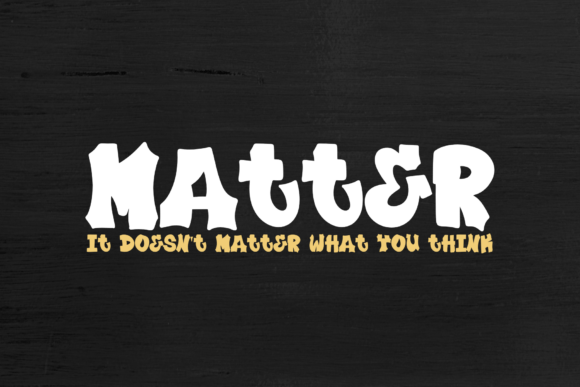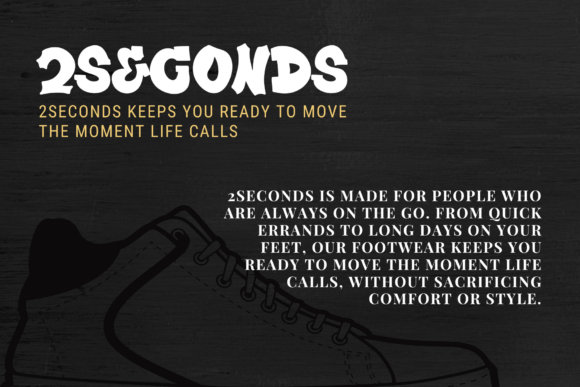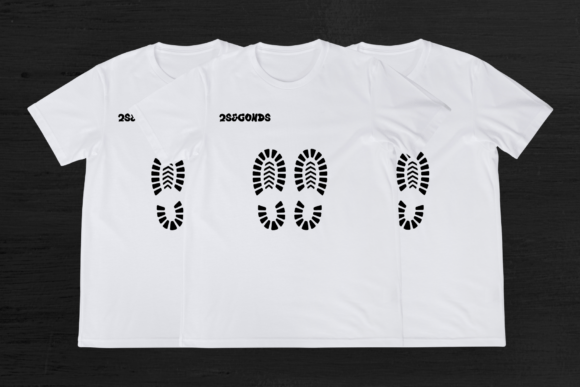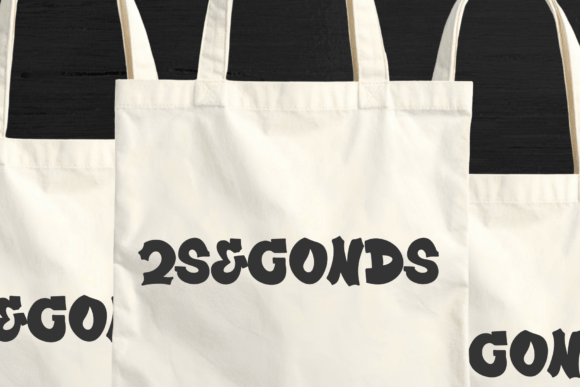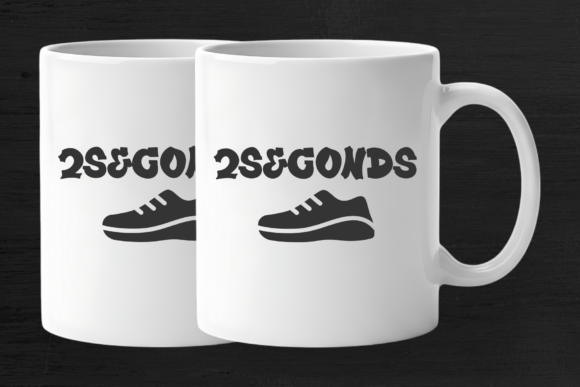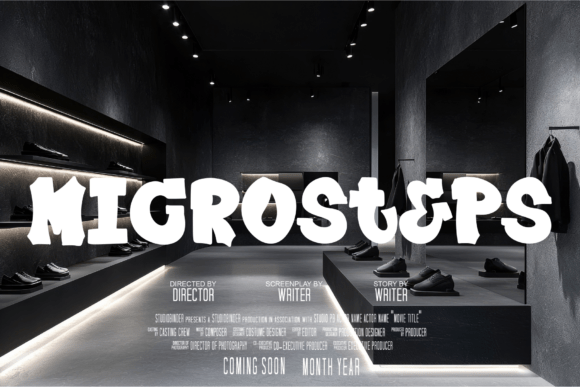
Introduction to Plump Parade Font
Plump Parade Font marches in with big, bouncy letters that grab attention fast.
Rounded forms feel friendly and celebratory, while wide counters keep every word clear on posters, shirts, stickers, banners, and social posts Use it for parade signage, festival merch, school spirit days, birthday decor, and brand launches.